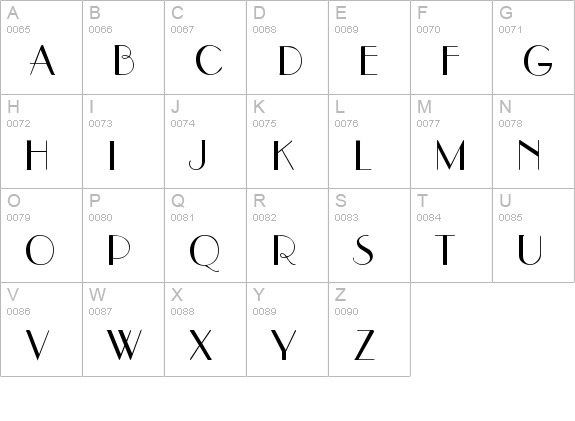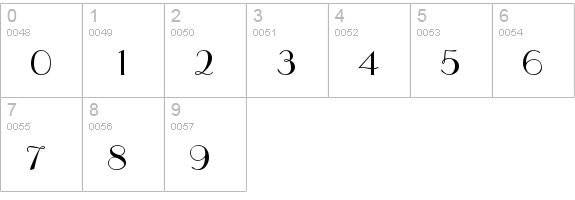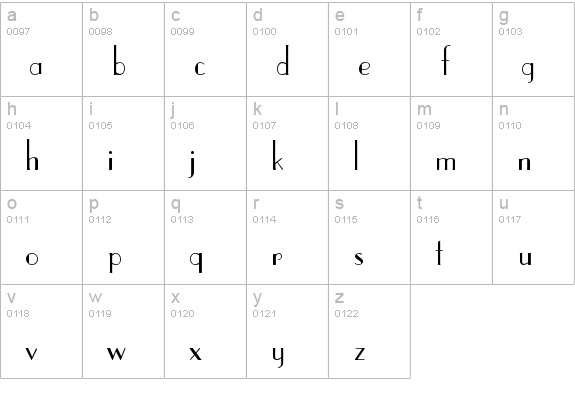
WeekendInParis Font Details
Introducing WeekendInParis, a truly captivating font that will transport you to the charming streets of the City of Lights. With its elegant and sophisticated design, this font exudes a sense of timeless beauty that is reminiscent of a weekend getaway in Paris. WeekendInParis is the perfect choice for any project that requires a touch of class and sophistication. Whether you're designing a wedding invitation, creating a logo for a high-end brand, or simply adding a touch of elegance to your personal blog, this font will effortlessly elevate your design to new heights. But the best part about WeekendInParis? It's completely free! That's right, you can freely download this exquisite font at FontsMarket.com. Say goodbye to the days of searching endlessly for the perfect font, only to be disappointed by hefty price tags. With WeekendInParis, you can now add a touch of Parisian charm to your designs without breaking the bank. The attention to detail in WeekendInParis is truly remarkable. From its refined and graceful letterforms to its delicate serifs, every aspect of this font has been carefully crafted to create a truly stunning result. Each character is beautifully balanced, ensuring that your text flows seamlessly across the page. Whether you're using WeekendInParis for headlines or body text, its legibility remains unmatched. The clean lines and generous spacing make it easy to read, while the subtle curves and flourishes add a touch of whimsy and flair. So why wait? Download WeekendInParis today and let its enchanting beauty transform your designs. With its timeless elegance, this font is sure to become a staple in your font library. And the best part? It's all yours for free, exclusively at FontsMarket.com. Say au revoir to boring fonts and bonjour to WeekendInParis!